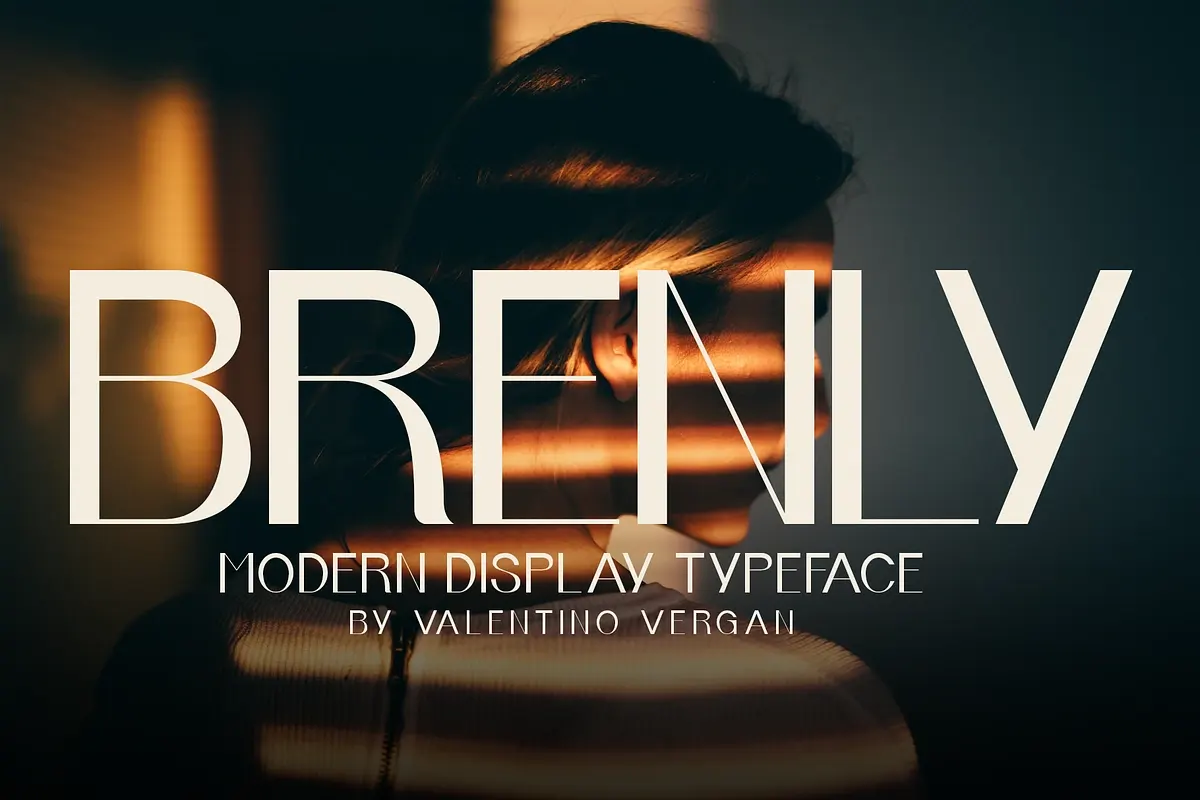
Please note that you must purchase this font for commercial use. You can download Brenly – Variable Font for free, strictly for personal testing purposes only. Brenly is a modern variable font that allows for a wide range of customization, offering flexibility in weight, width, and style to meet your design needs. With its smooth, clean lines and contemporary aesthetic, Brenly Variable Font Free Download is perfect for creating dynamic, adaptable designs for websites, branding, logos, editorial layouts, and more.
As a variable font, Brenly lets you adjust the thickness, slant, and other aspects of the typography, giving you the ability to create a variety of looks with just one font. It includes uppercase and lowercase letters, numerals, punctuation, and multilingual support, providing versatility for global design applications.
Whether you're working on a responsive website design, building a modern brand identity, or creating sleek promotional materials, Brenly brings flexibility and modern elegance to your typography.